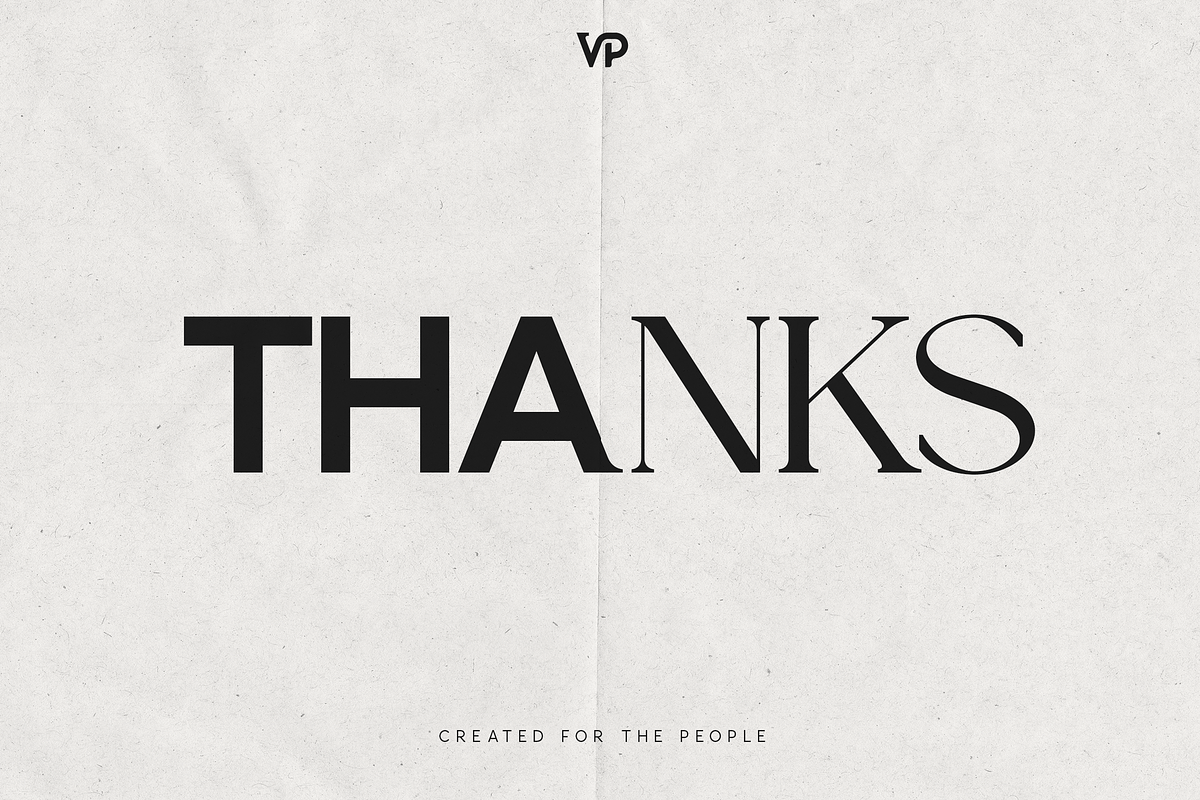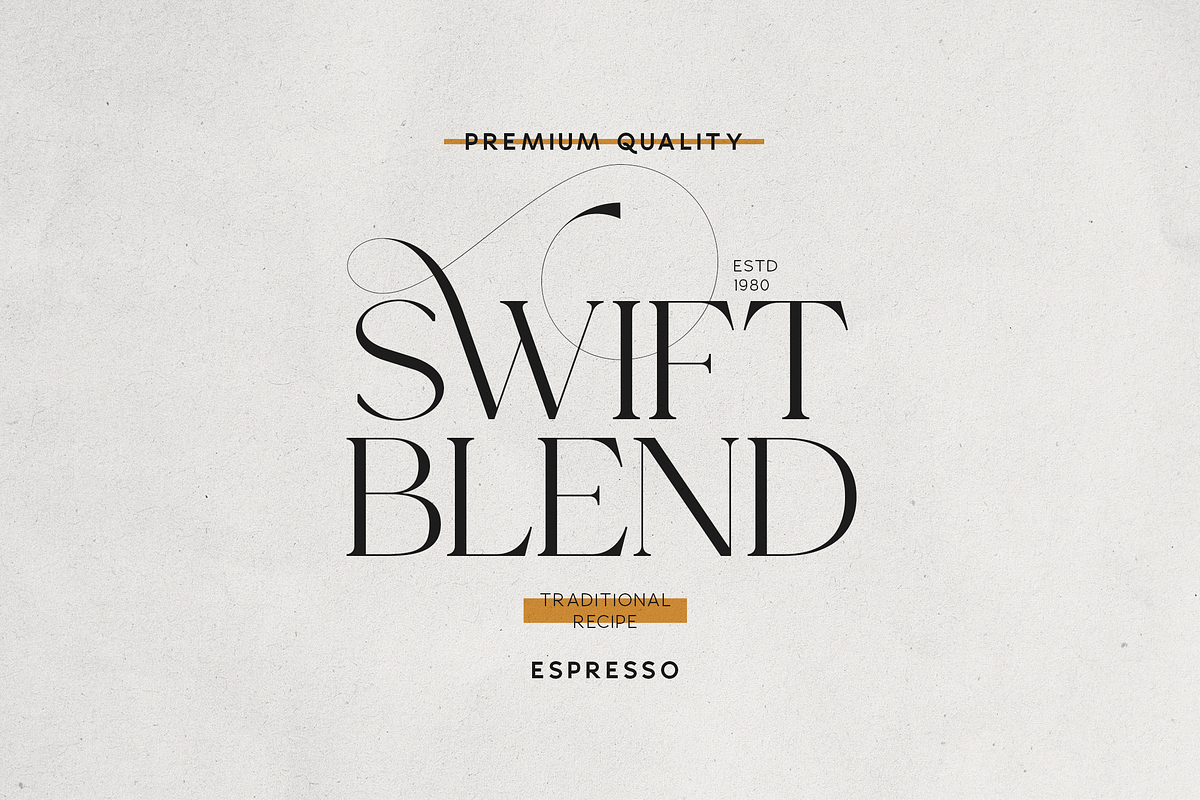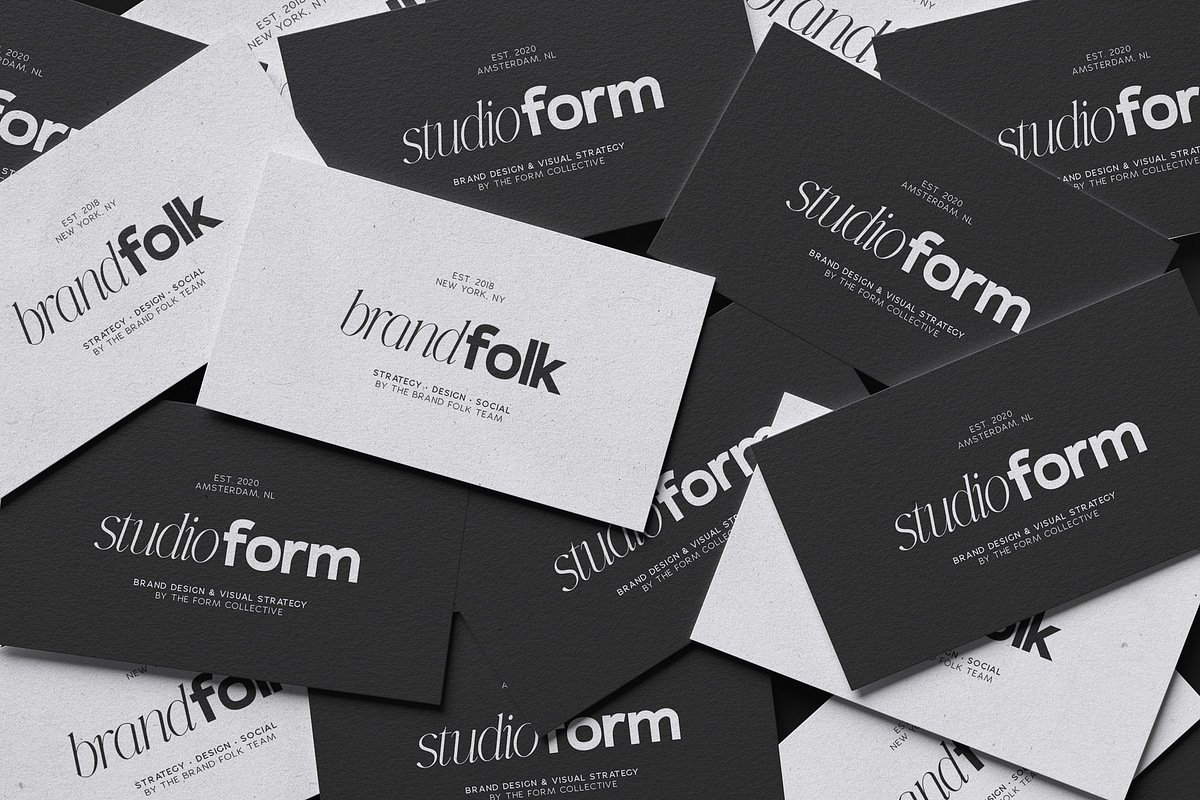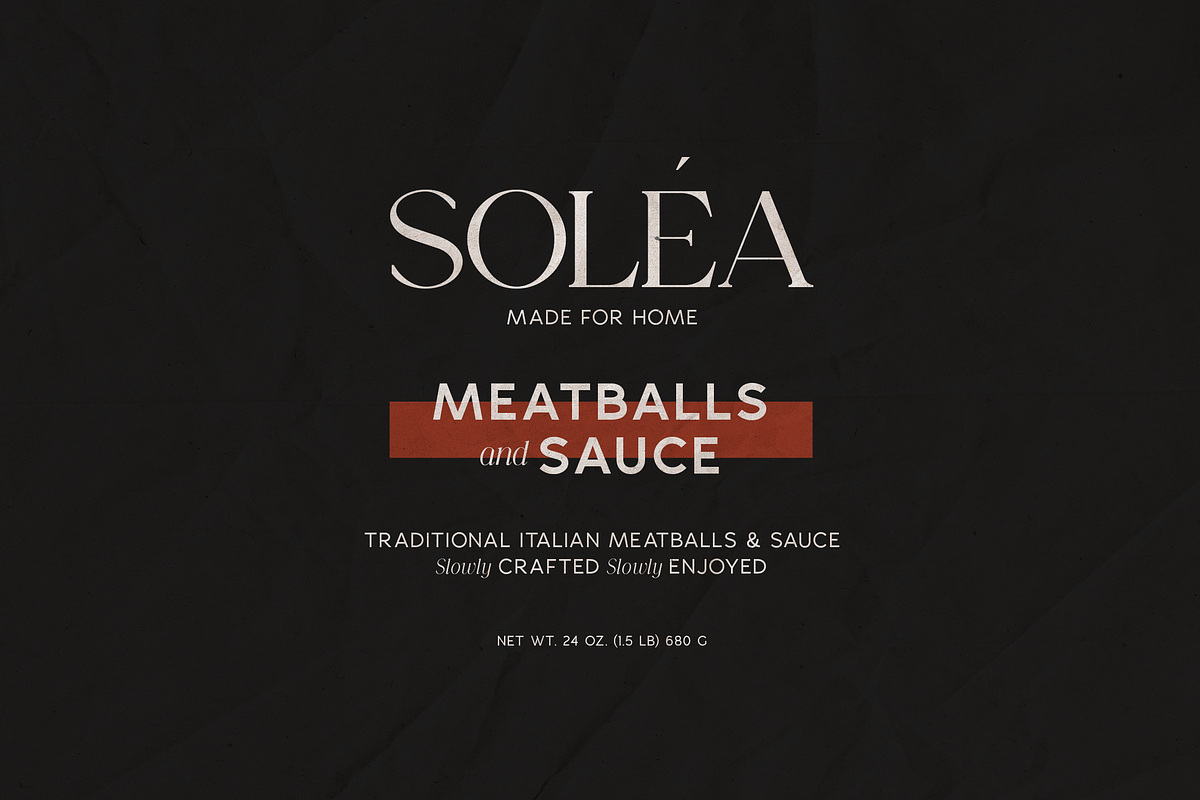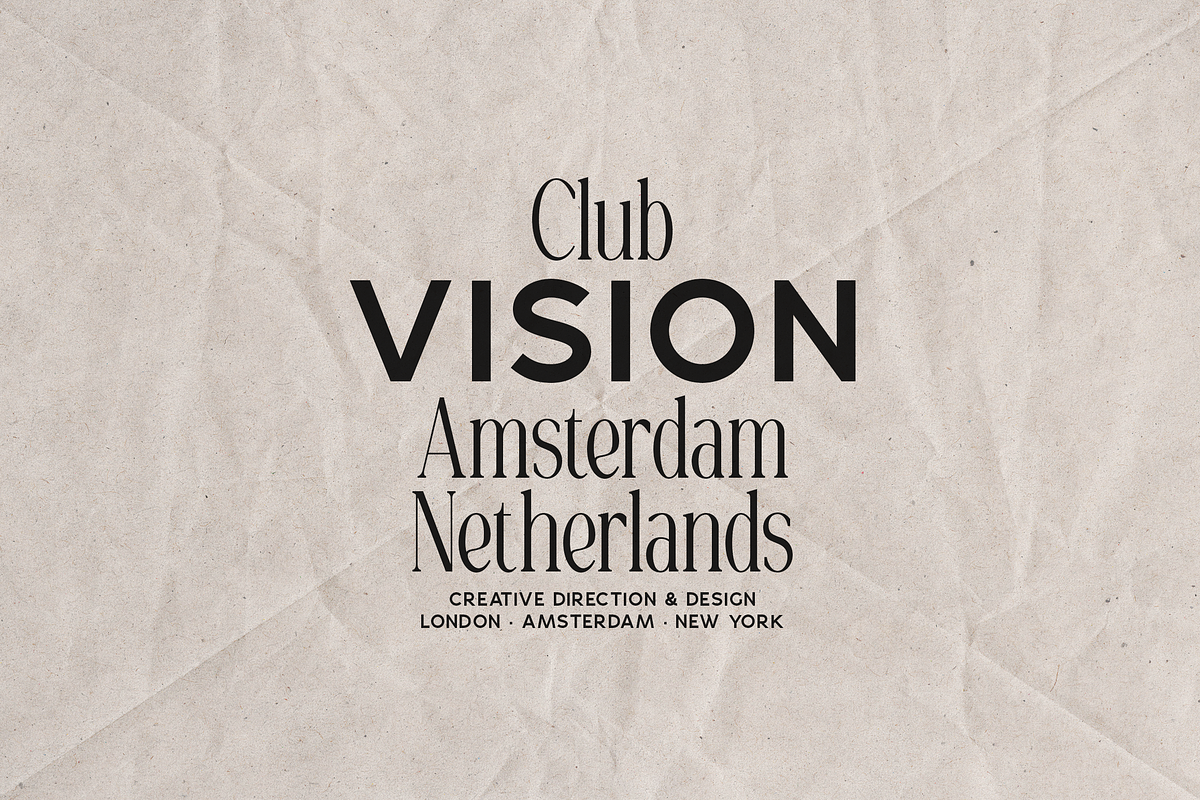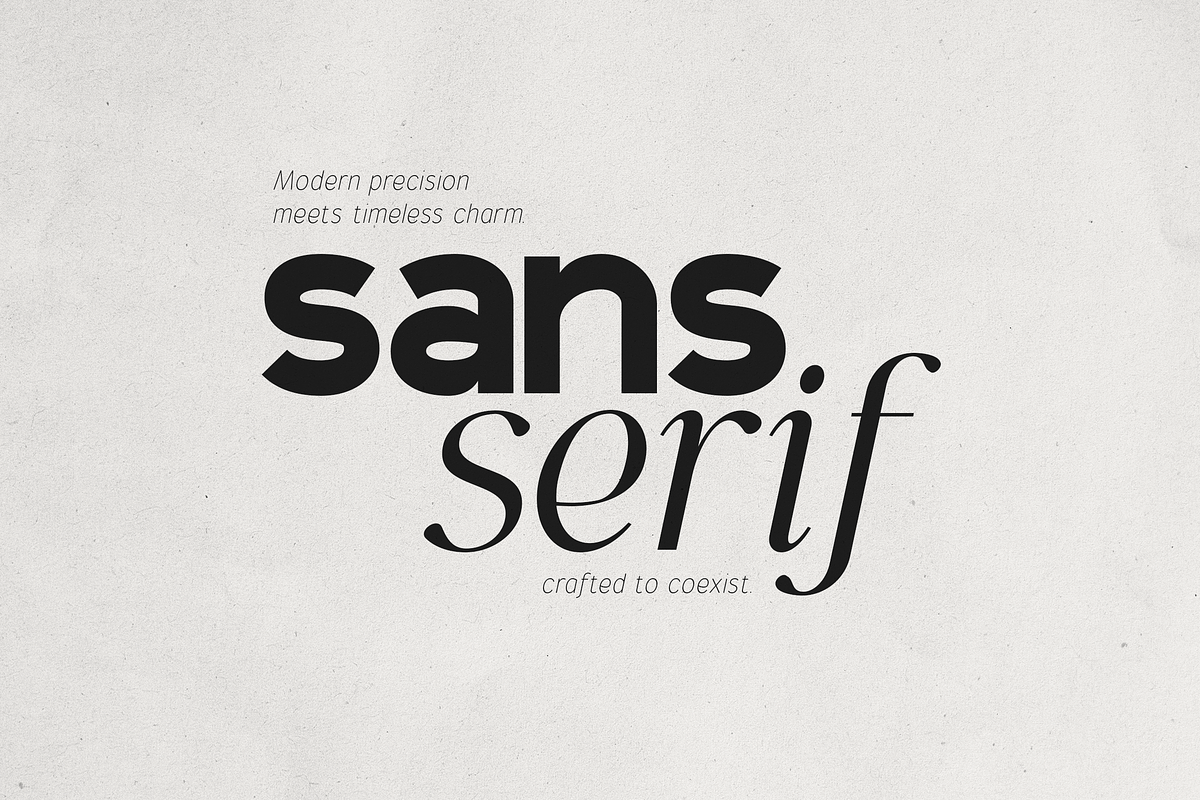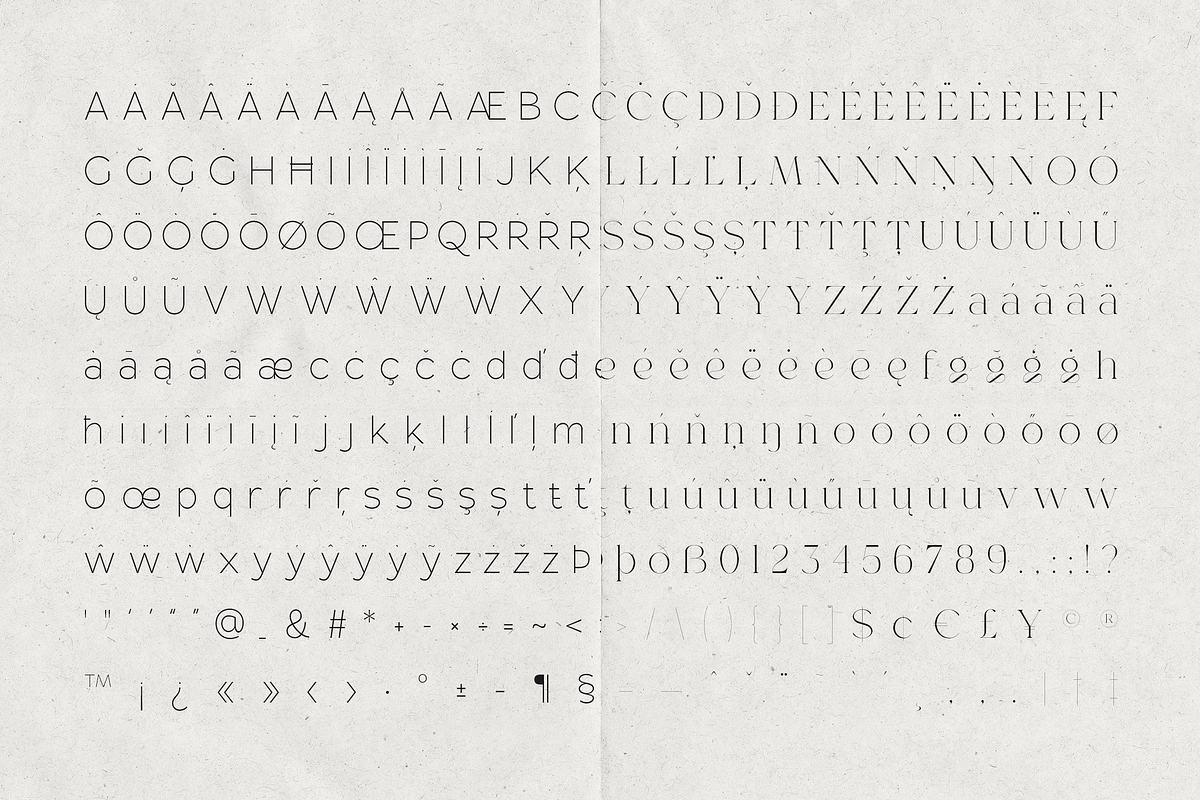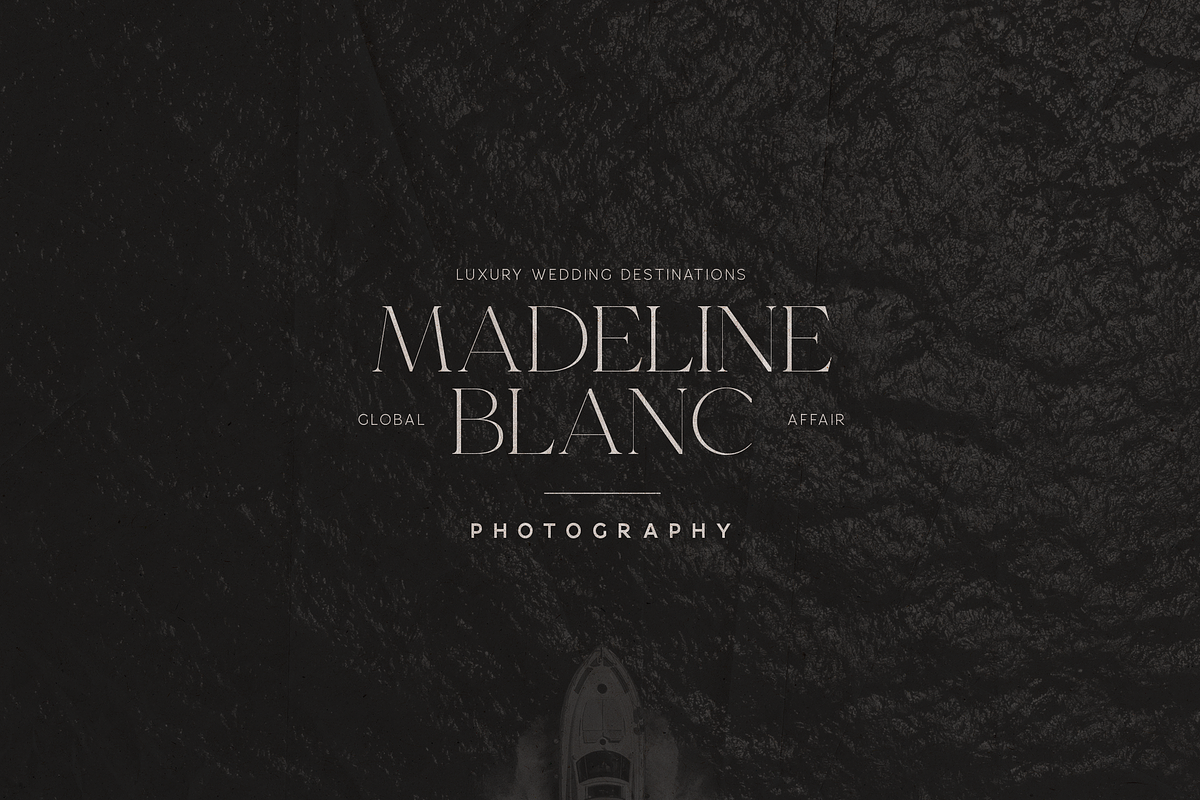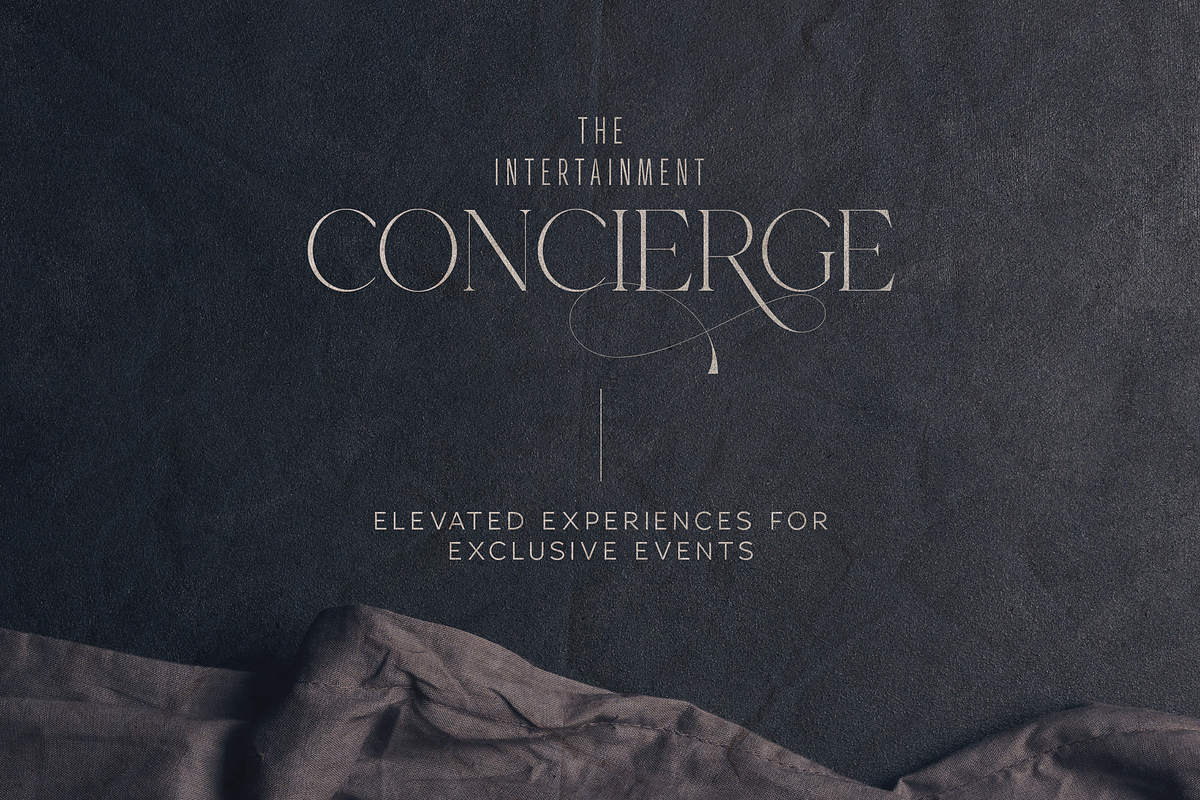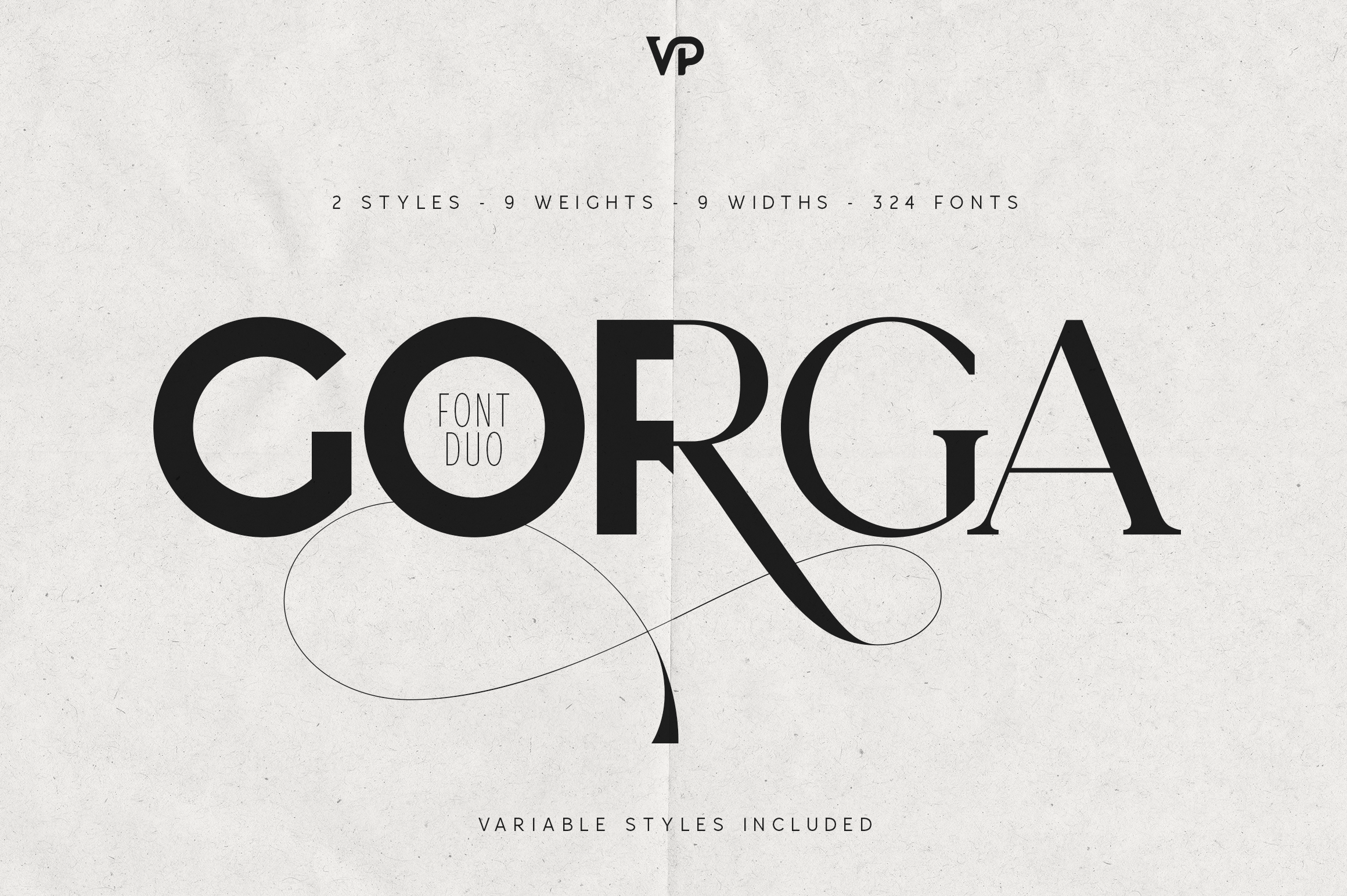
Gorga Font Duo – Modern Sans & Serif
Gorga Font Duo – Modern Sans & Elegant Serif Typeface with Variable Styles
Gorga is a premium font duo designed to bring modern versatility and timeless elegance to any creative project. Featuring 2 complementary styles, 9 weights, 9 widths, and an impressive 324 total fonts, Gorga offers exceptional flexibility for branding, editorial design, packaging, and digital experiences.
This refined type system pairs a bold, contemporary sans-serif with a graceful, high-contrast serif—crafted to coexist seamlessly. With expressive curves, sophisticated ligatures, and smooth variable styles, Gorga delivers both precision and personality in equal measure.
Perfect for luxury branding, magazines, fashion campaigns, food packaging, logos, social media graphics, and cinematic posters, Gorga provides designers with a complete typographic toolkit that elevates any visual identity.
- Font duo: Modern Sans + Elegant Serif
- 9 Weights × 9 Widths (per style)
- 324 total fonts
- Variable fonts included
- Beautiful alternates
- Sophisticated high-contrast design
- Ideal for branding, editorial, packaging, and digital use
Bring polished craftsmanship, modern charm, and creative freedom to your next project with the Gorga Font Duo.